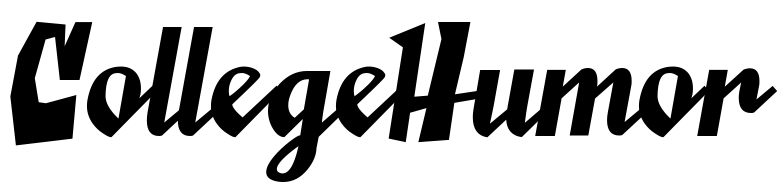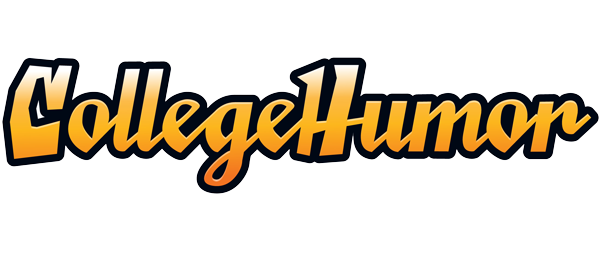
CollegeHumor Logo Font
Fonts in UseCollegeHumor is a comedy website founded in 1999 that produces humorous articles, videos, and online games targeted toward college students and young adults. Its content includes parodies, satirical articles, and humorous sketches on various topics ranging from pop culture to politics.
Saucy Millionaire is CollegeHumor's logo font, created by merging two incomplete fonts by Chank in 1996. Saucy was a bouncy font in capitals, and Millionaire was a script face with unfinished capitals, inspired by a paint tube logo.